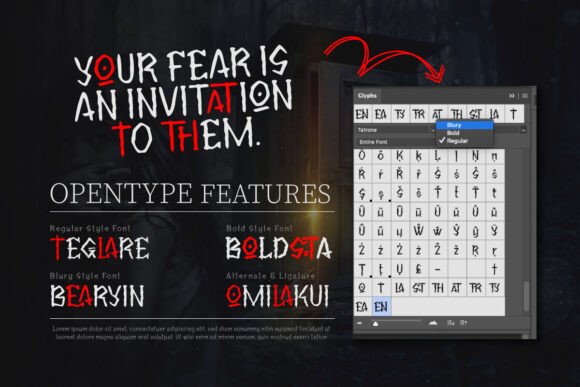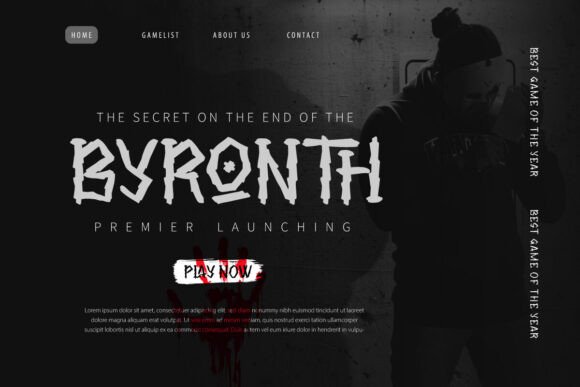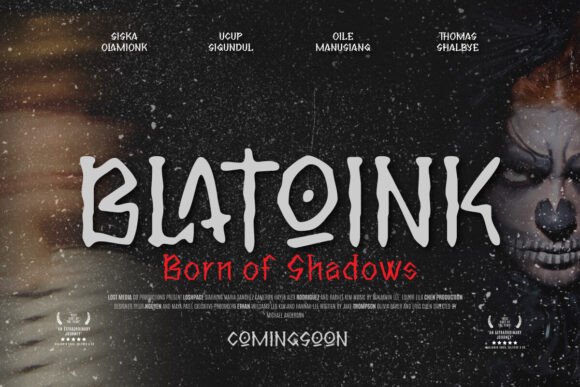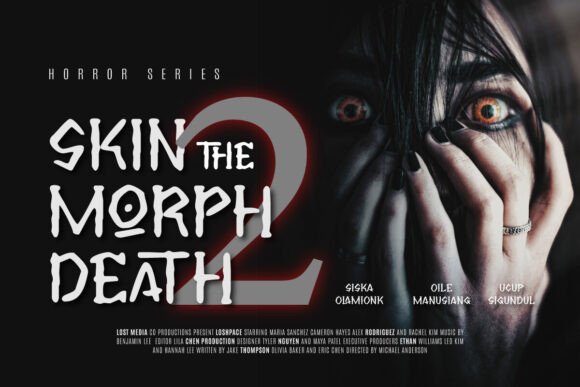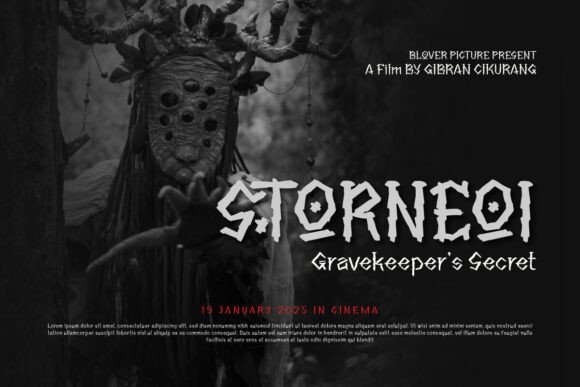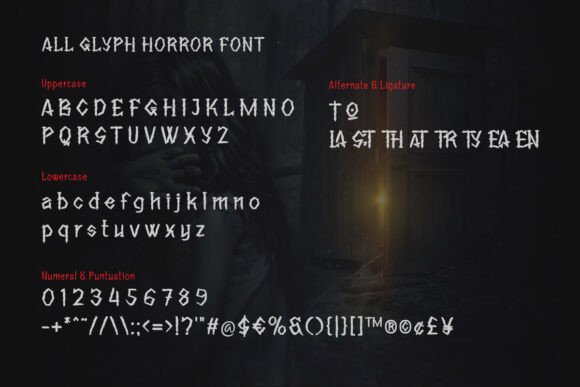
Flaroyat Font: Unleash the Fear with this Spine-Chilling Horror Display Font
Are you a designer or crafter looking for a font that can add a touch of horror and eeriness to your designs? Look no further than Flaroyat Font, a spooky typeface that captures the terrifying essence of horror. With its sharp and dramatic letterforms, Flaroyat creates an unsettling atmosphere that’s perfect for scary movie titles, game posters, haunted house flyers, and any design that needs a little bit of fear.
The Perfect Font for Horror Fans
Flaroyat Font stands out with its very bold style, making it an ideal choice for horror fans who want to create designs that scream with intensity. Whether you’re working on a project for a horror movie, a haunted house, or a scary game, Flaroyat is the perfect font to use. Its bold and dramatic letterforms are sure to grab attention and leave a lasting impression on your audience.
Key Features of Flaroyat Font
Flaroyat Font has several key features that make it a must-have for designers and crafters who want to create spooky and eerie designs. Some of its key features include:
- Sharp and Dramatic Letterforms: Flaroyat’s letterforms are sharp and dramatic, creating an unsettling atmosphere that’s perfect for horror-themed designs.
- Bold Style: Flaroyat’s bold style makes it perfect for creating eye-catching designs that grab attention.
- Versatile: Flaroyat can be used for a wide range of designs, including scary movie titles, game posters, haunted house flyers, and more.
Uses for Flaroyat Font
Flaroyat Font can be used for a wide range of designs, including:
- Scary Movie Titles: Flaroyat is perfect for creating scary movie titles that will grab attention and leave a lasting impression on your audience.
- Game Posters: Flaroyat can be used to create game posters that will stand out and leave a lasting impression on gamers.
- Haunted House Flyers: Flaroyat is perfect for creating haunted house flyers that will grab attention and entice people to visit.
- Horror-Themed Designs: Flaroyat can be used for any design that requires a touch of horror and eeriness, such as Halloween decorations, horror-themed party invitations, and more.
Tips for Using Flaroyat Font
Flaroyat Font is a must-have for designers and crafters who want to create spooky and eerie designs. With its sharp and dramatic letterforms, bold style, and versatility, Flaroyat is perfect for creating scary movie titles, game posters, haunted house flyers, and any design that needs a little bit of fear. So why wait? Unleash the fear with Flaroyat and make your designs scream with intensity.